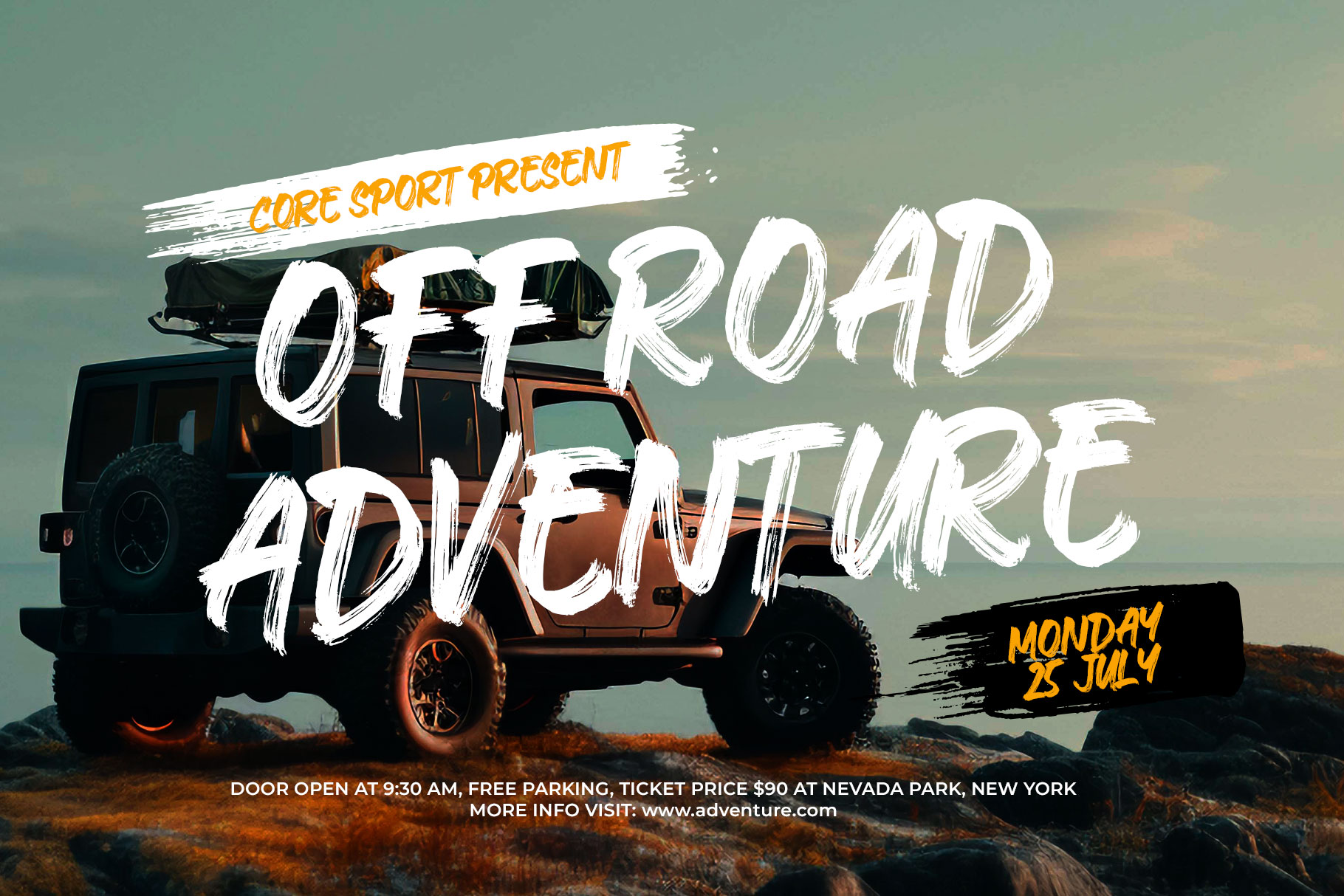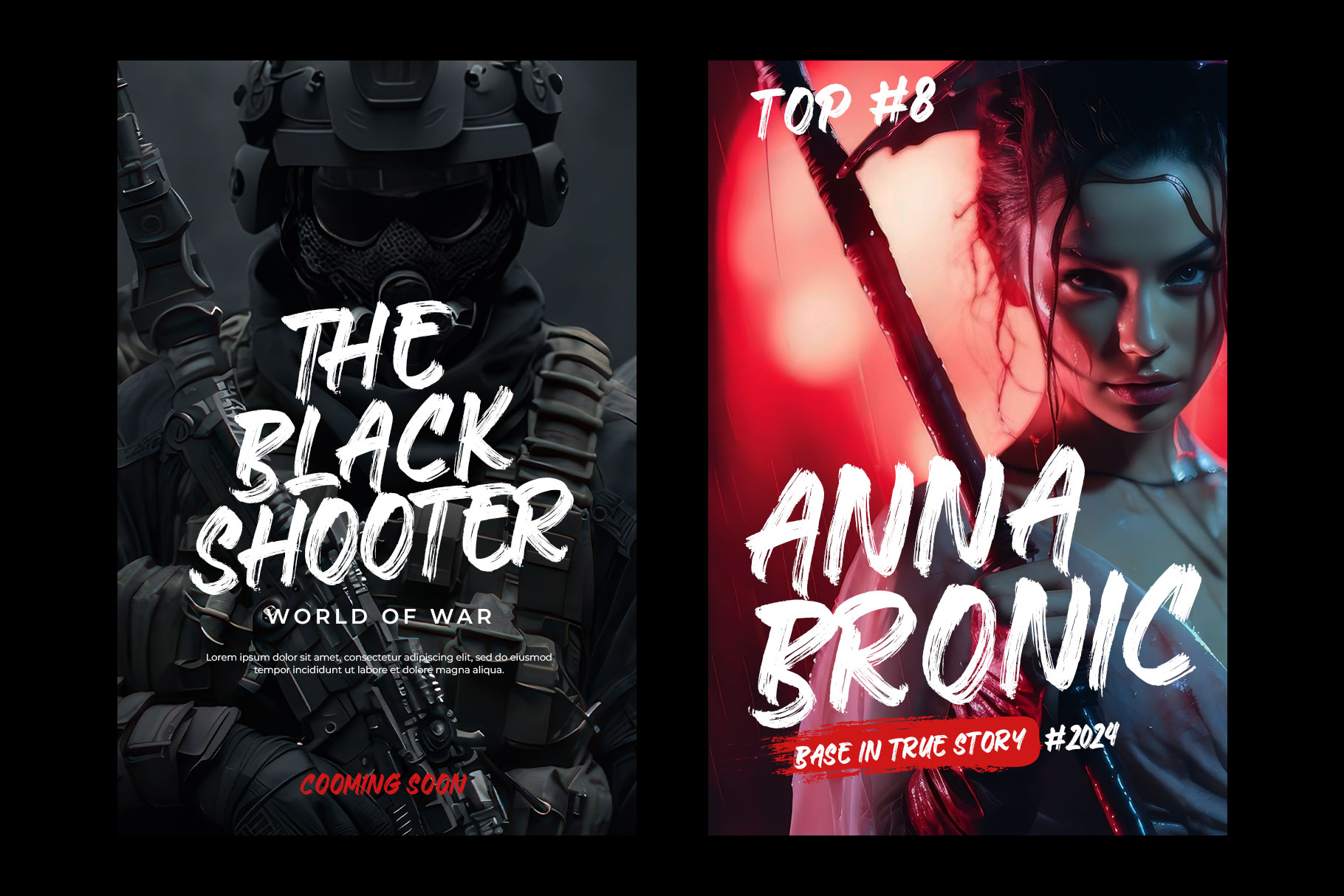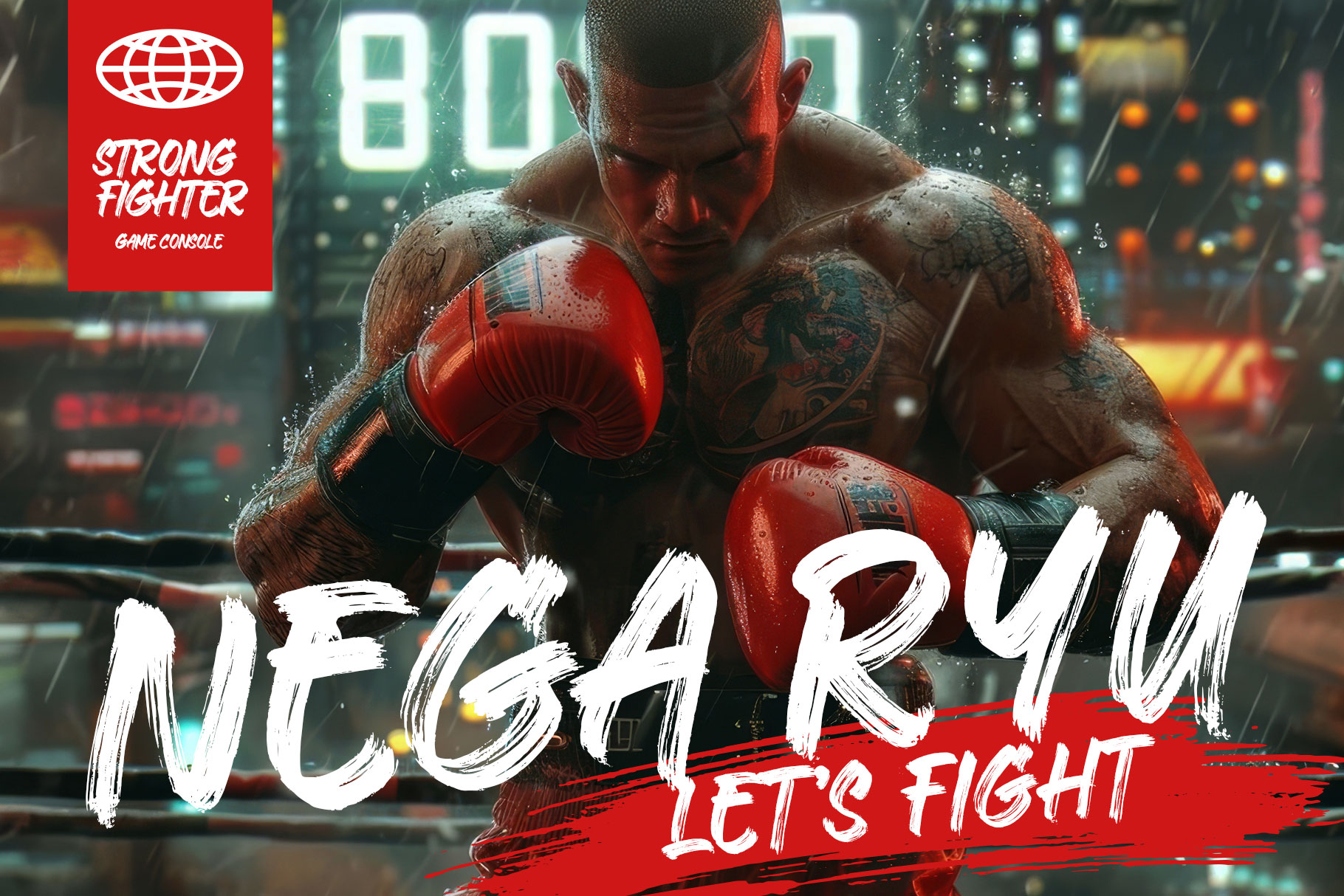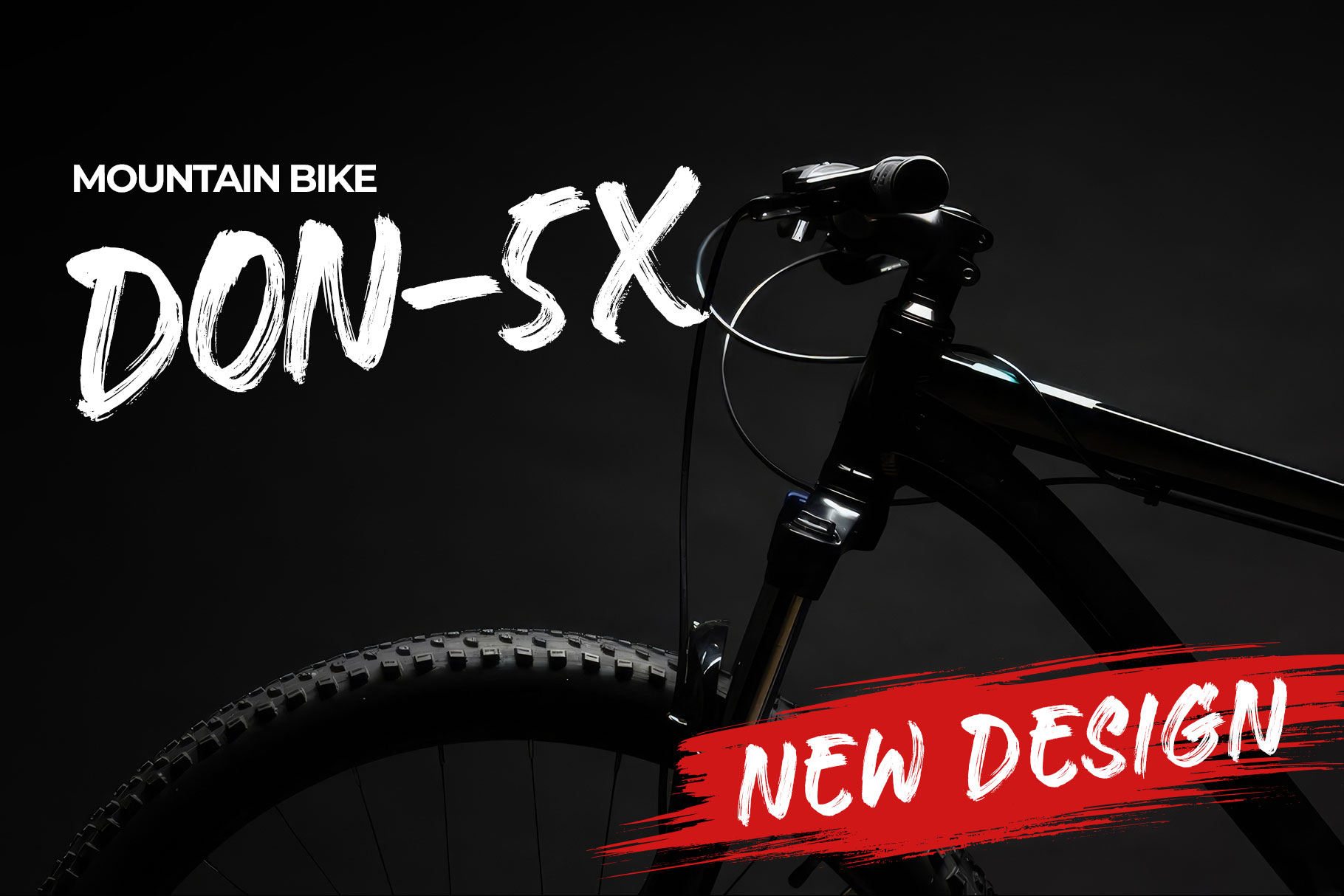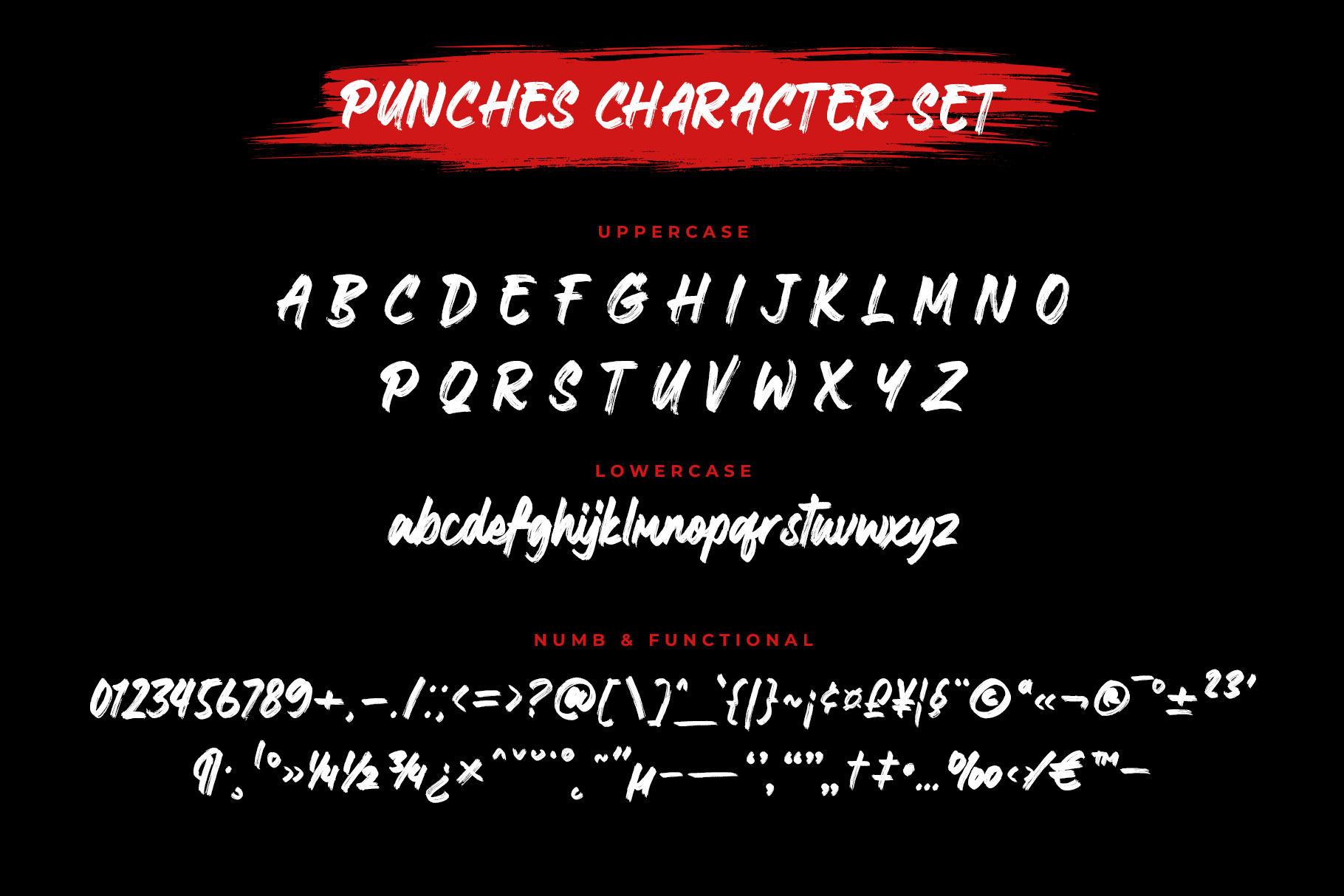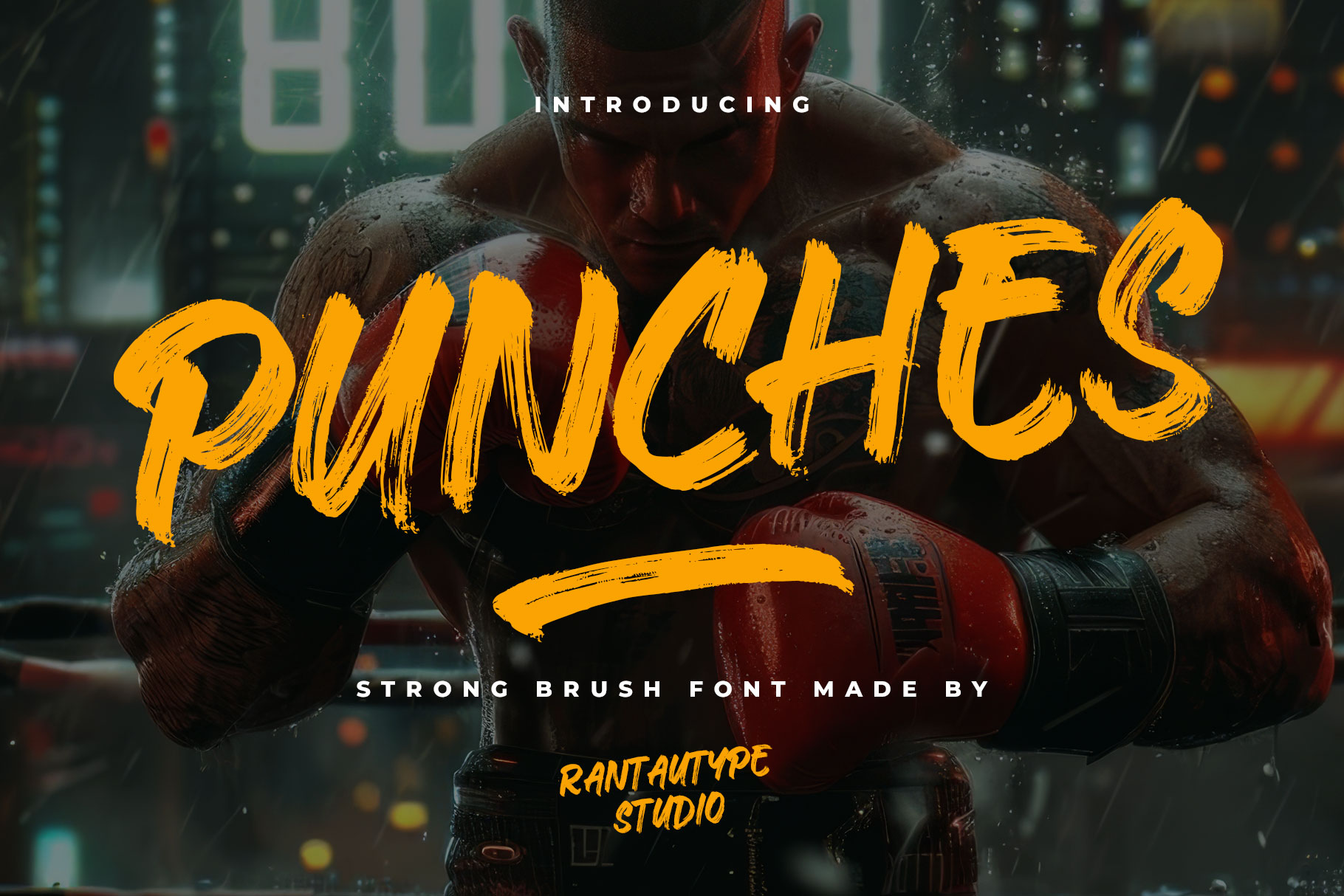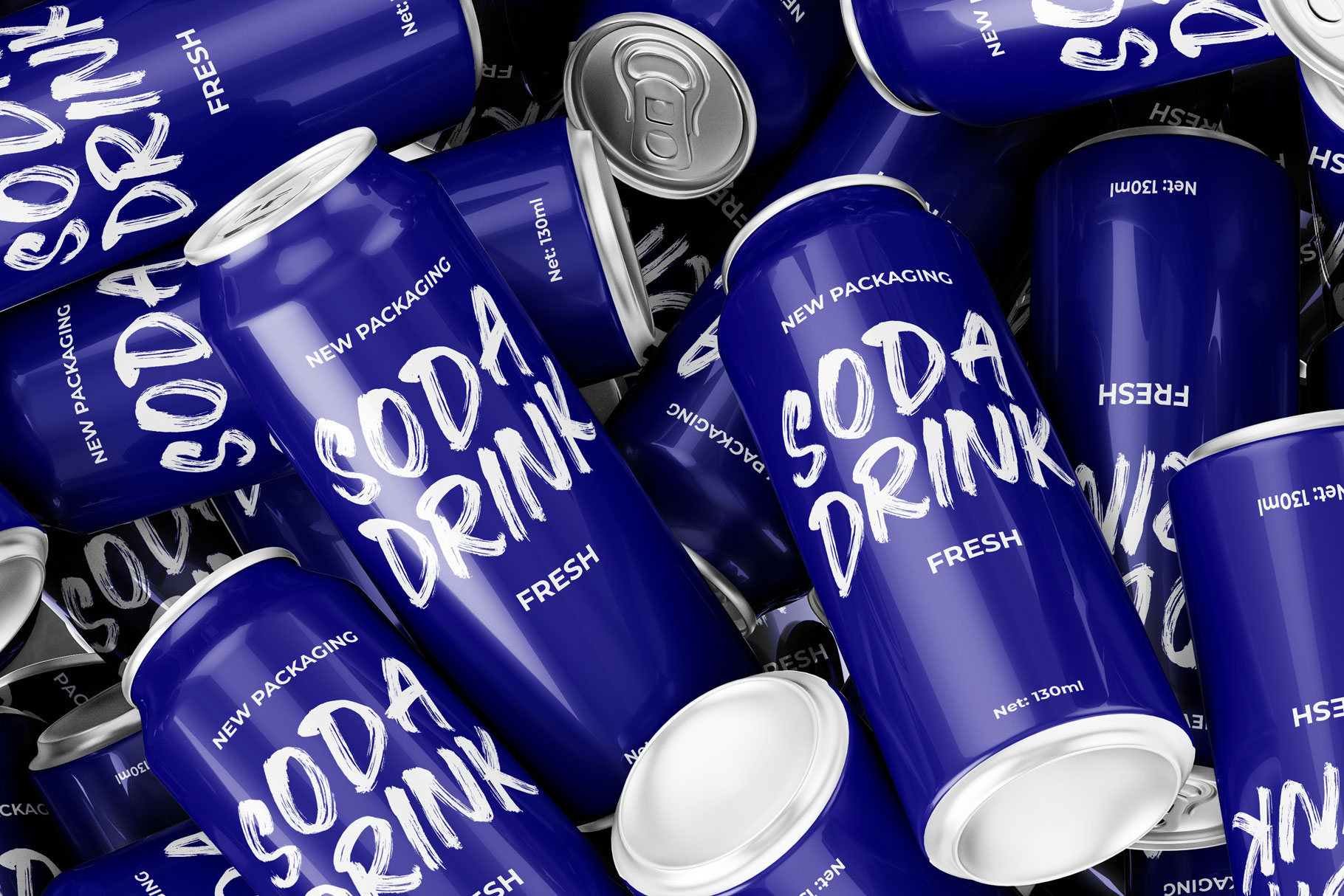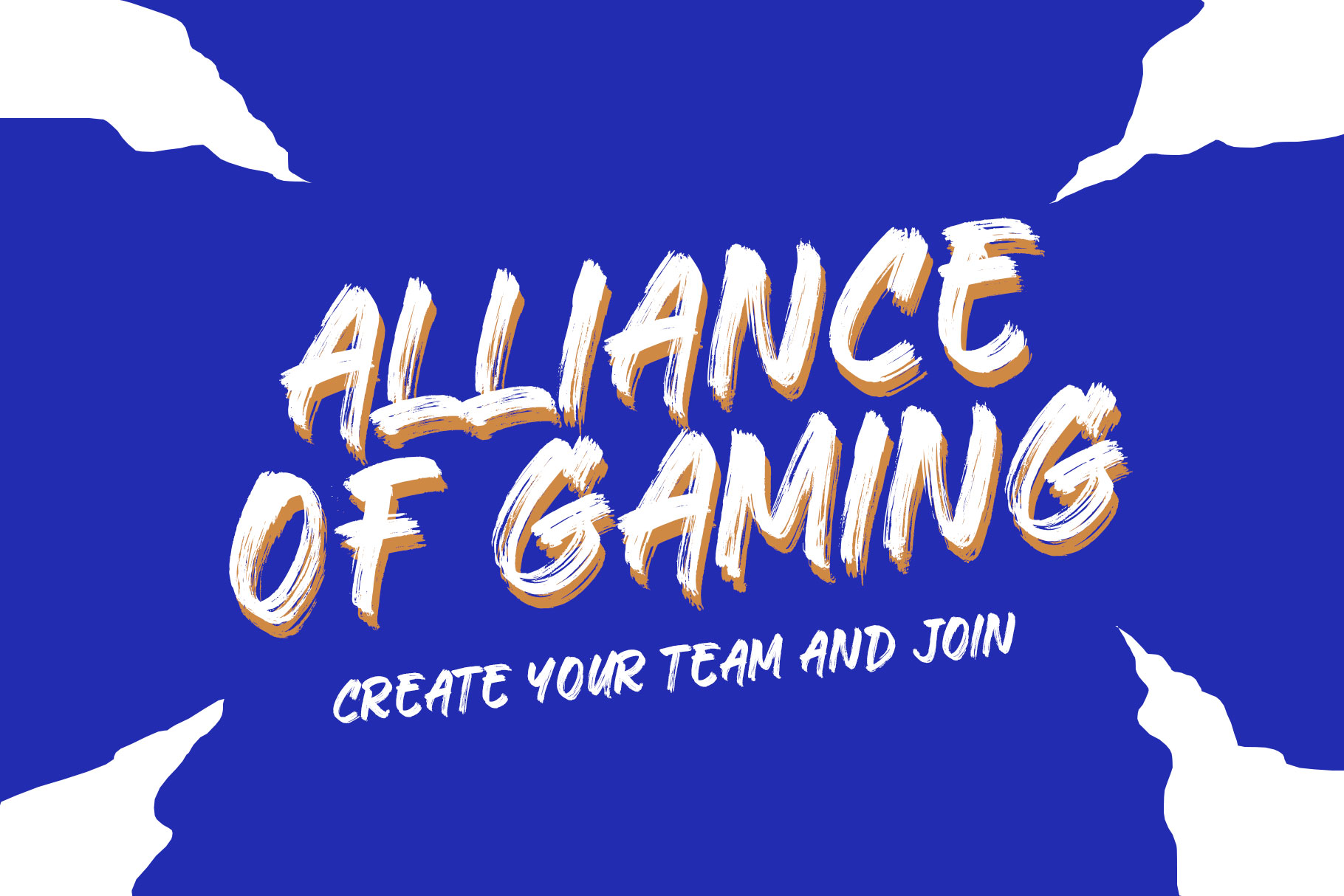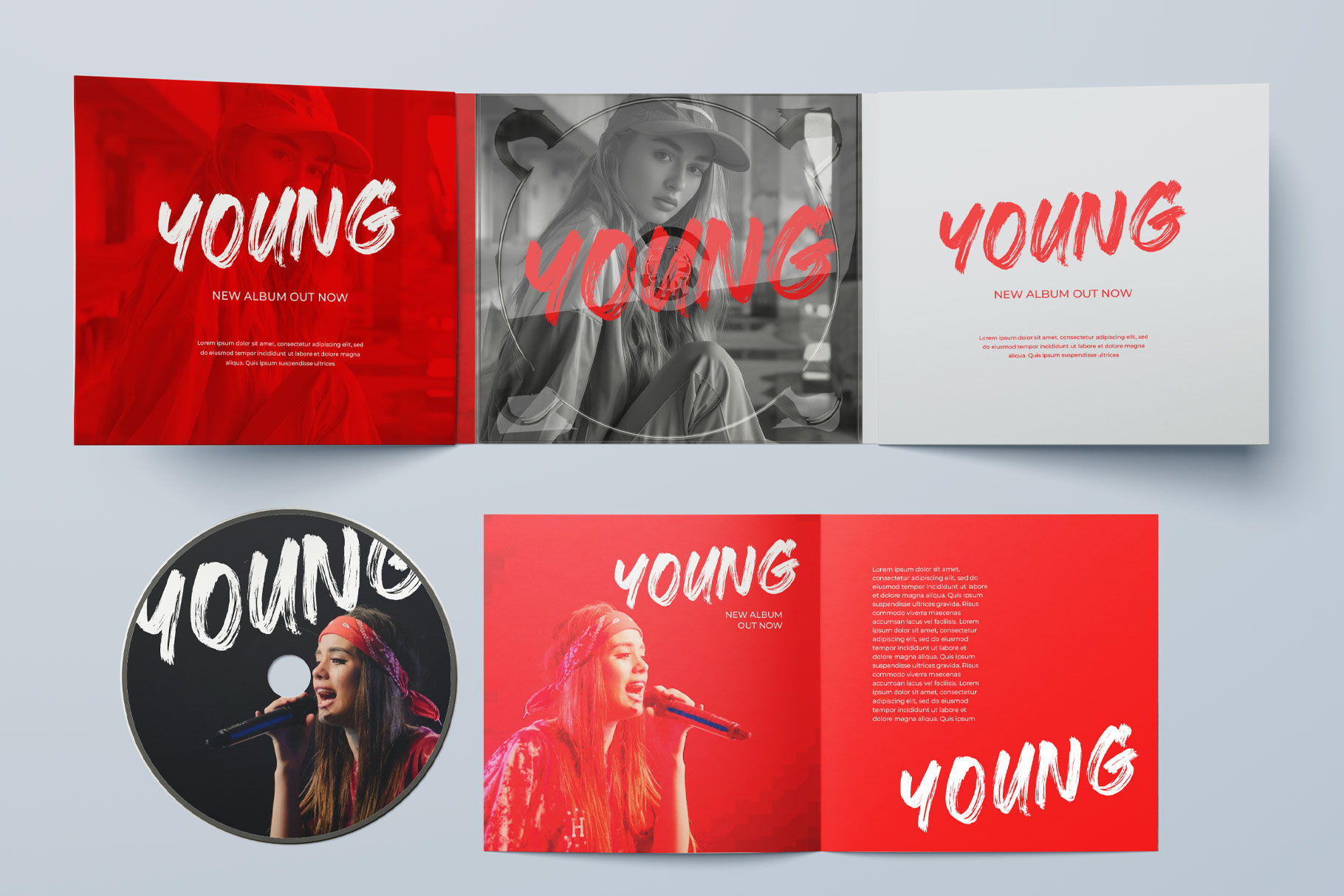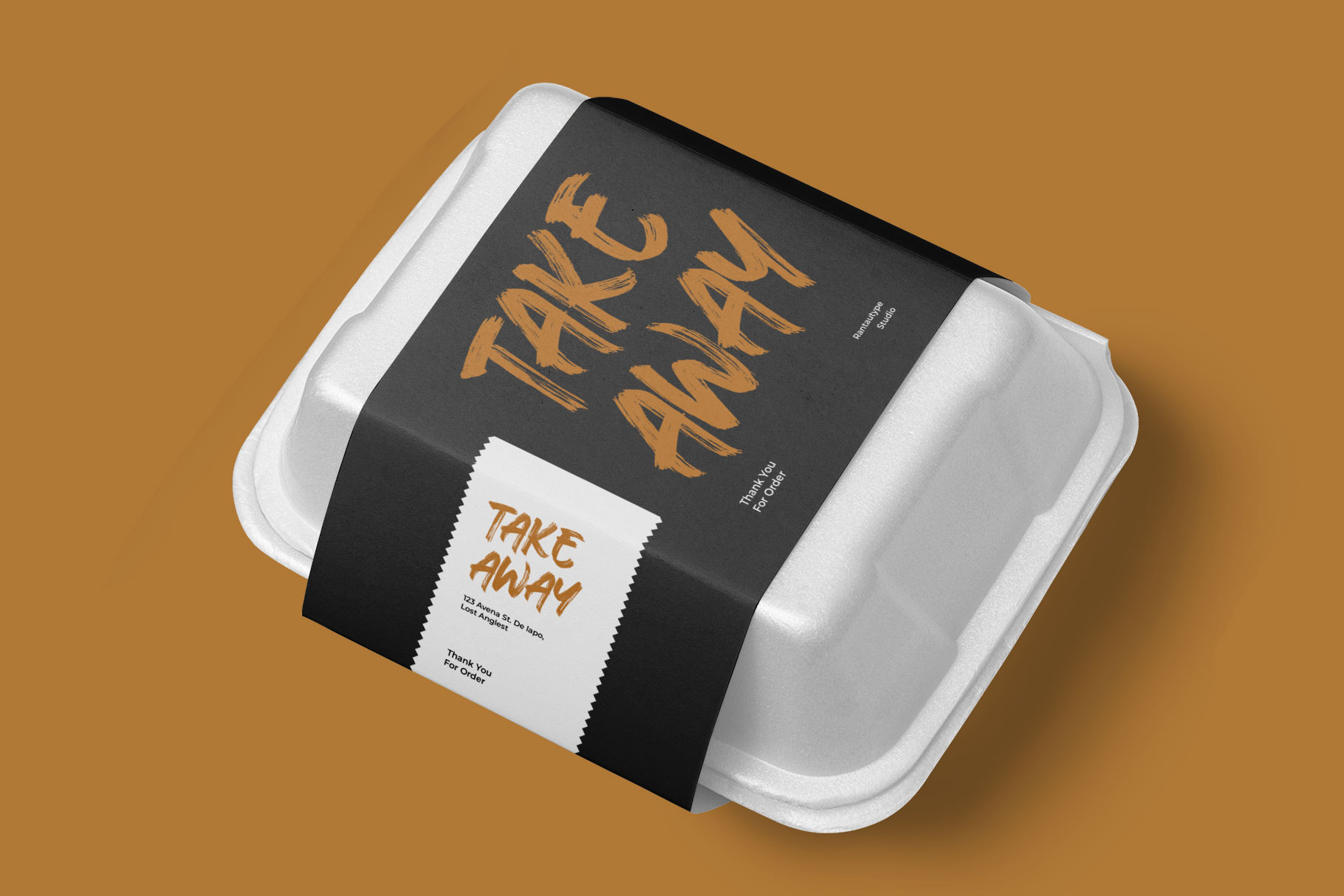
Punches Strong Brush Font
Punches is strong font with natural brush sign. Punches bring sophisticated of brush to help make design project, it’s very strong and bold. We make this font easy to use and multifungtional.
Punches is a perfectly choice for any creative endeavor, chic, lifestyle design such as logos, advertisements, watermark on photography, stationery, branding project, display and magazine, invitation, corporate brand, product design, label, business project and other project with handwritten taste.